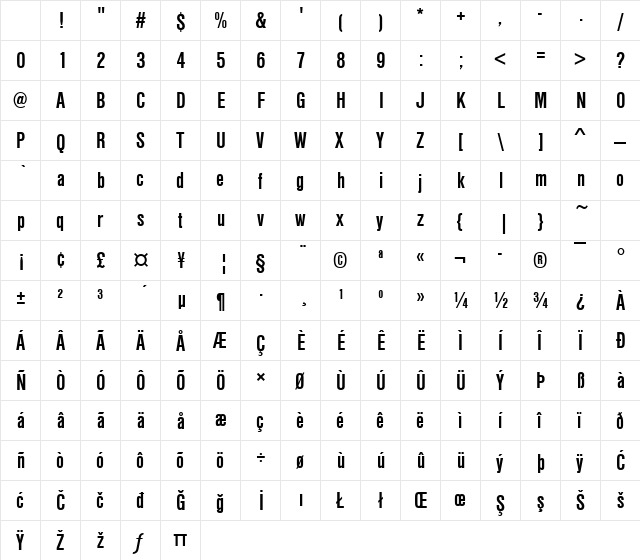
Complete Nimbus Sans Becker DCon Bold glyph index. Displaying only characters natively supported by Nimbus Sans Becker DCon Bold font.
Nimbus Sans Becker DCon is a composed and adaptable typeface that performs quietly and consistently across a wide range of design contexts. Its bold stroke weight gives it real presence on the page.